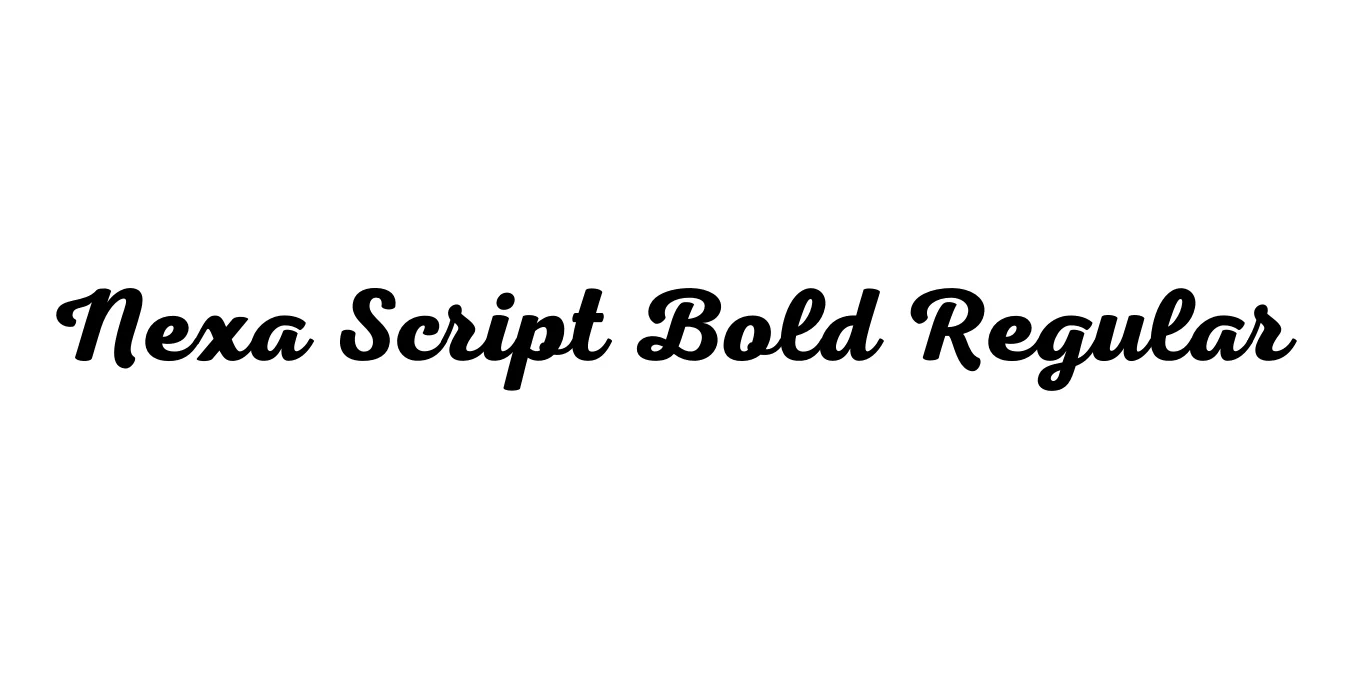
Nexa Script Bold Regular
Designed by Svetoslav Simov
Nexa Script Bold Regular is a sophisticated and clean script typeface designed by Svetoslav Simov as a complementary addition to the world-renowned Nexa sans-serif family. Created under the Fontfabric type foundry, it bridges the gap between geometric precision and organic, hand-drawn aesthetics. The Bold weight specifically offers a sturdy and confident presence, ensuring that the script remains highly legible even when used for prominent headlines or impactful branding elements.
The font is characterized by its fluid transitions and modern OpenType features, which include various ligatures and stylistic alternates to help designers achieve a custom, hand-lettered look. Its structure is based on the same foundations as the original Nexa, making it an ideal choice for pairing with its sans-serif siblings in complex typographic hierarchies. Whether used in digital interfaces or high-quality print production, Nexa Script Bold Regular maintains a balance of professional structure and human warmth.
Nexa Script Bold Regular Best Uses
Perfect for modern brand identities that require a friendly yet professional signature look.
Ideal for high-impact Instagram quotes, Pinterest graphics, and YouTube thumbnails.
Adds a human touch to hero sections and call-to-action buttons on creative websites.
Works beautifully for boutique product labels, artisanal food packaging, and cosmetic branding.